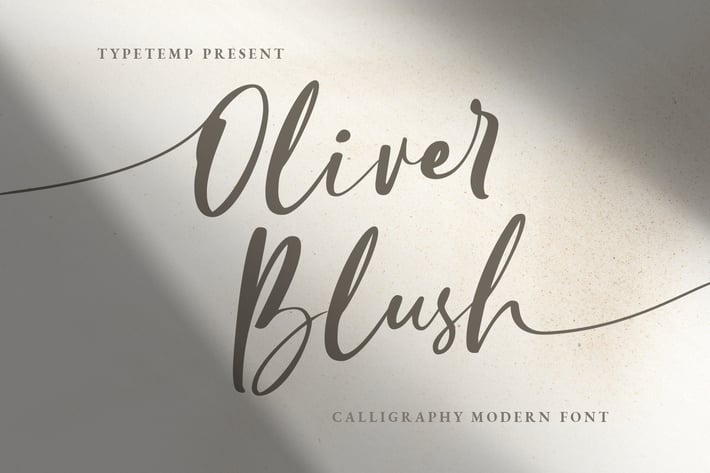
Oliver Blush Calligraphy Modern Wedding Font
Introducing the new Oliver Blush the new Calligraphy Modern, for those of you who need a chic, elegant, modern touch for your design needs.
Oliver Blush Calligraphy Modern is built with ligatures, alternative start and end swashes, numbers, punctuation marks, and also multilanguage.